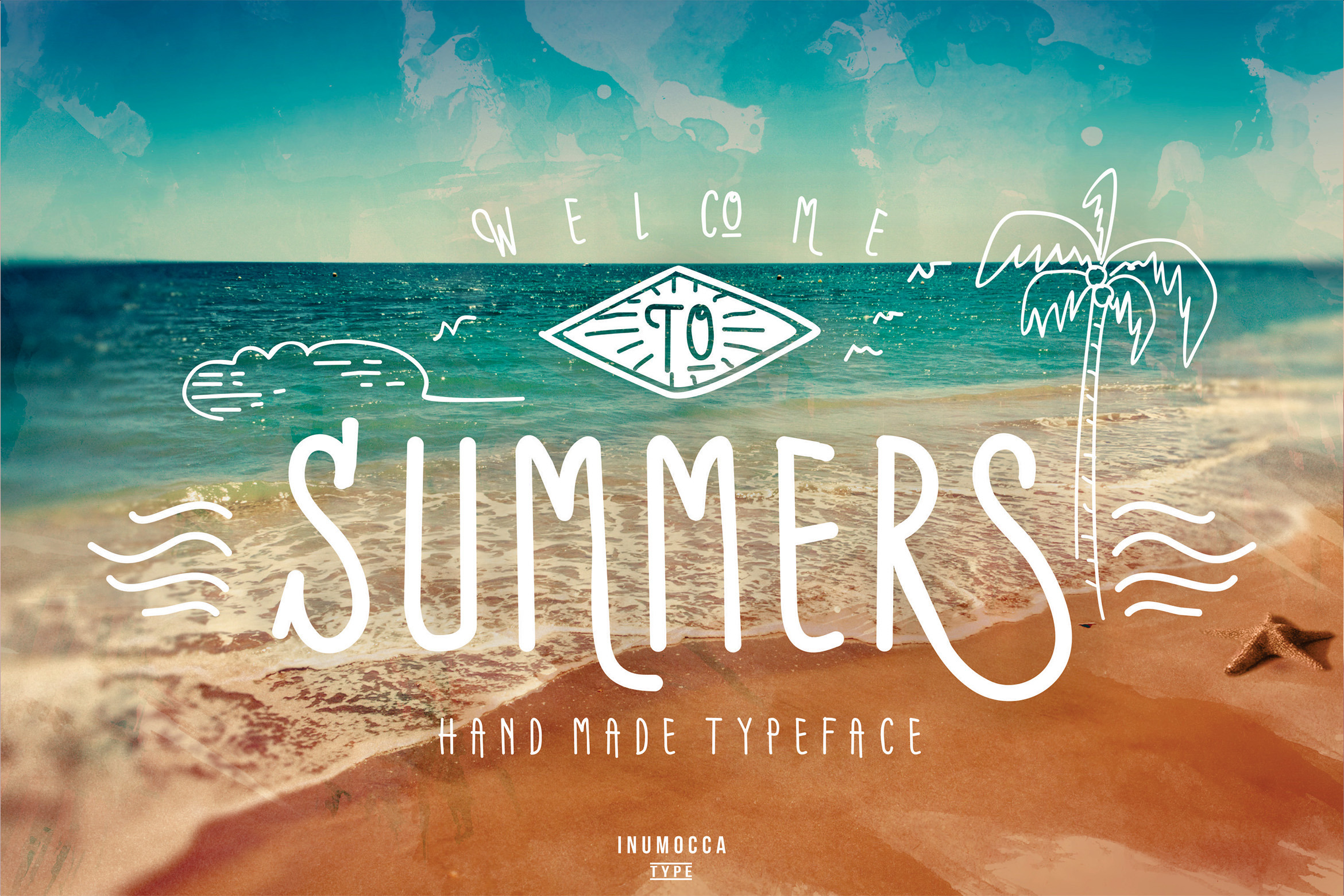
Summers Typeface + BONUS vector
Summers typeface
Summers typeface its a modern and classic handmade typeface, really beautiful to typography, make your quotes, your brand, Logos, catalog , all about of fashions and art in summer or other season :)
Summers typeface more 300 unique glyphs
Summers typeface support with Opentype
- nice Contextual Alternates, Swash
- Stylistic Sets, Ligatures
- Multilingual characters